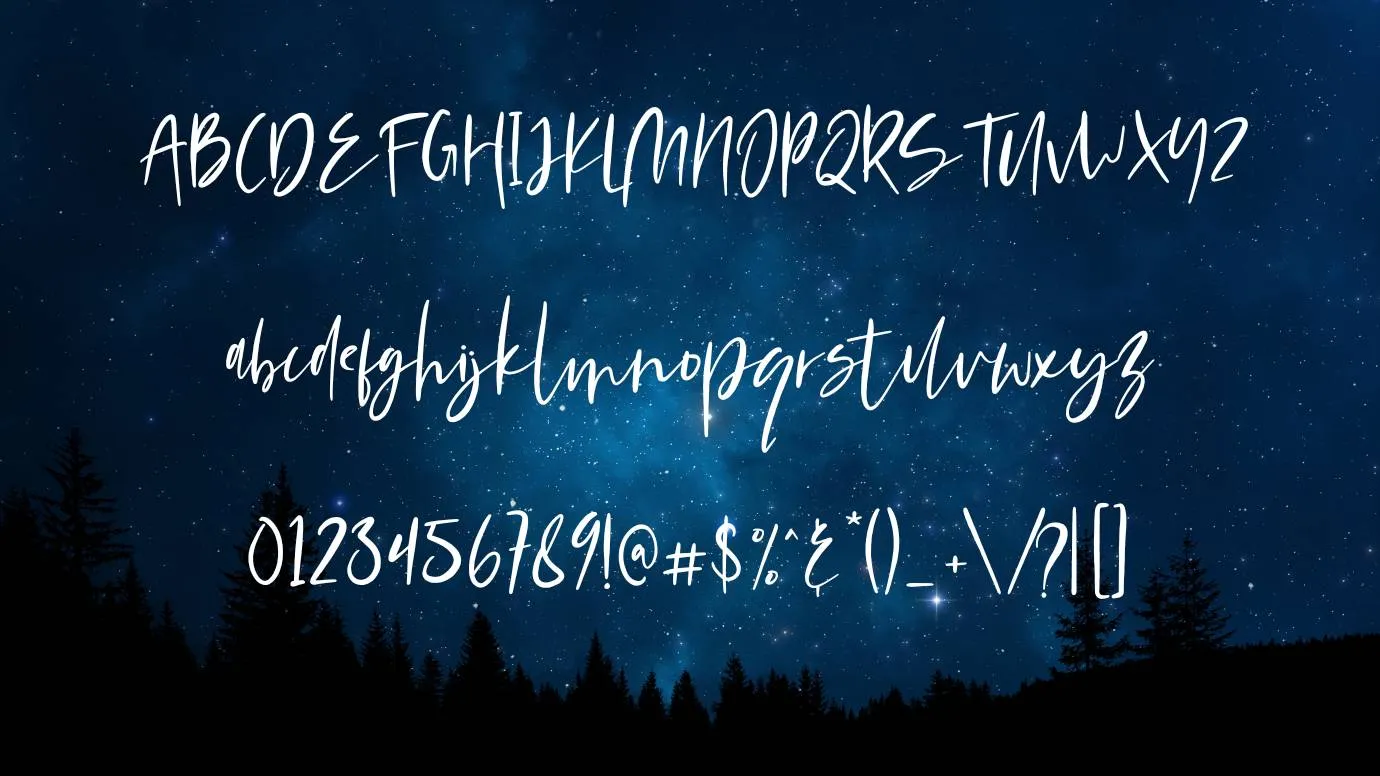
Mondela Font is a very attractive and nice script-type font. It was created by a famous graphic designer BrandSemut. You can make all personal and commercial projects by using this font.
Mondela Font
TypeHandwritten